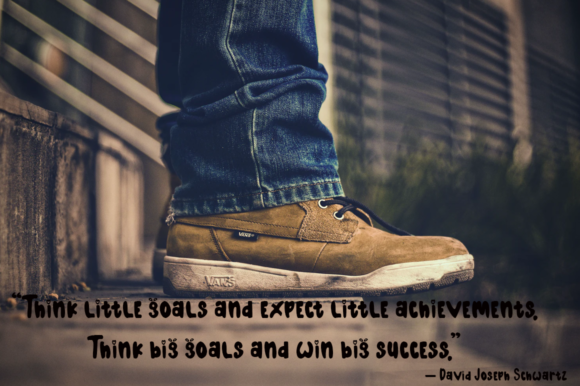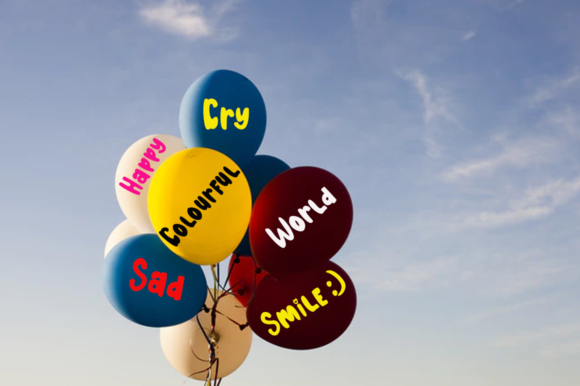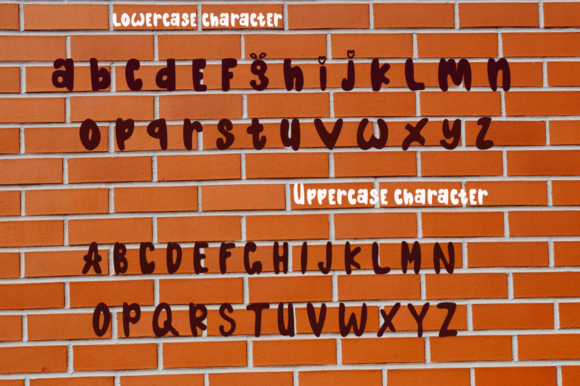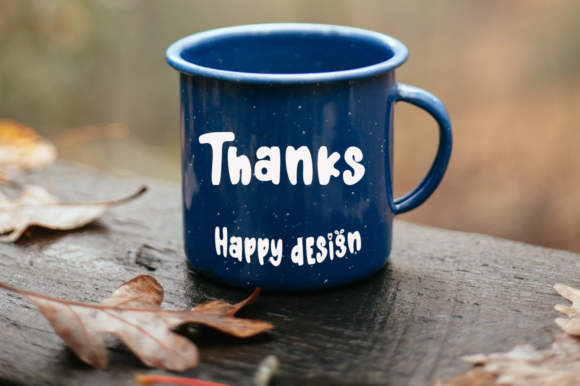
Little Bondy Font
About Little Bondy Font
Little Bondy is a simple and bold handwritten font. This is a beautiful combination of timeless elegance and authentic calligraphy. It features an incredibly classic style, while still keeping a friendly feel. Little Bondy is the perfect font for making original and outstanding designs.